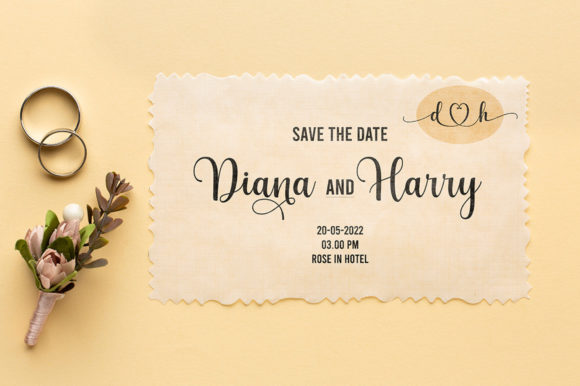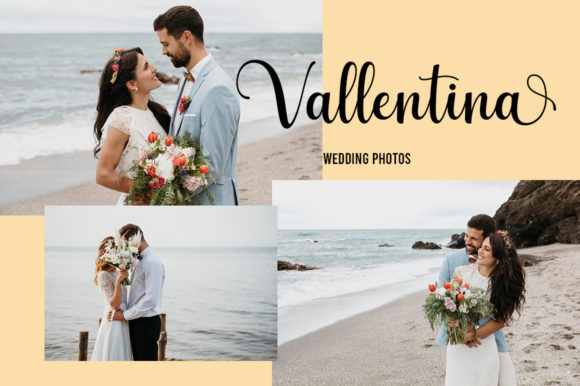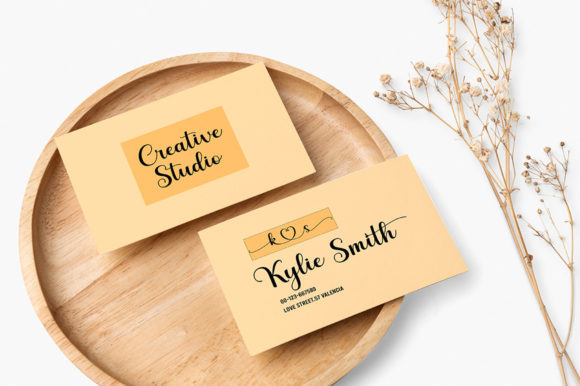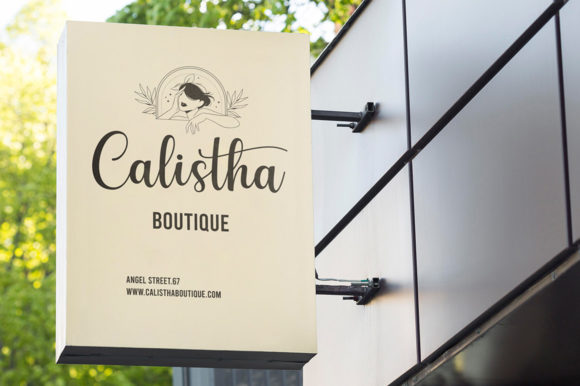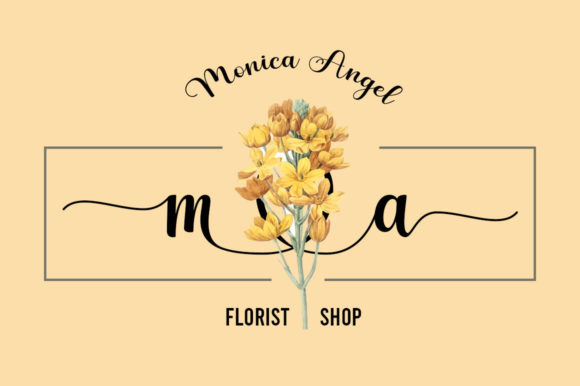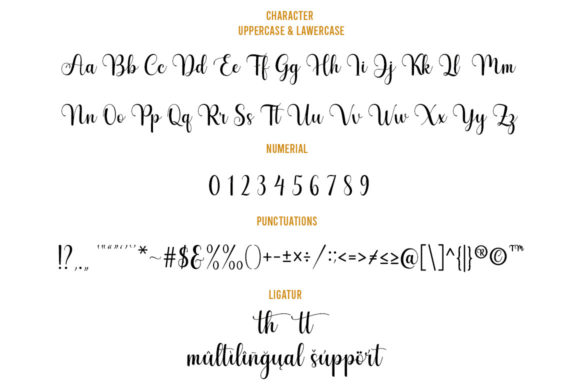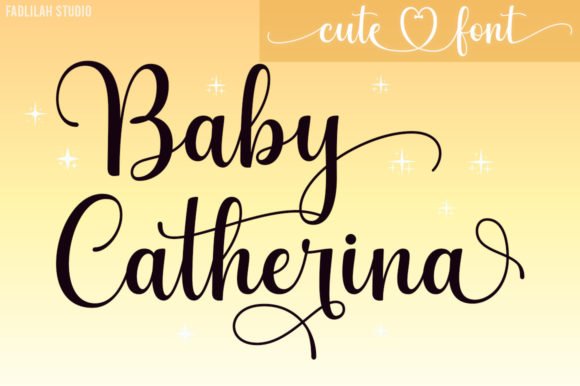
Discover the Timeless Elegance of Baby Catherina Font
There’s nothing quite like the thrill of brainstorming a new project, surrounded by scribbled notes and half-formed ideas. As you begin to envision your creation, the perfect font can make all the difference. And for designers looking to add a touch of sophistication to their work, Baby Catherina Font is a game-changer.
With its flowing, handwritten style, Baby Catherina Font is the perfect choice for those seeking an elegant and timeless look. Whether you’re crafting a wedding invitation, a baby announcement, or a personal blog post, this font is sure to capture the attention of your audience. Its distinct character and versatility make it a valuable asset for any designer looking to elevate their work.
Baby Catherina Font Key Features
- Font Family: Baby Catherina
- Unique Characteristics: Hand-drawn, whimsical, and elegant script font, ideal for creating a personal and unique touch in various designs
Baby Catherina Font Review
As a designer, I’ve had the chance to work with Baby Catherina Font, and I must say it’s a charming addition to any project. ✨ The font’s gentle, cursive lines evoke a sense of whimsy and playfulness, making it perfect for designs targeting young audiences or those with a soft, romantic feel.
- ✨ The font’s fluidity makes it easy to read, even in smaller sizes.
- ✨ The wide range of weights and styles allows for great flexibility in design.
- ✨ The font’s aesthetic is consistent across all weights, creating a cohesive look.
However, there are some limitations to consider. ⚠️ The font’s cursive nature can make it difficult to use in situations where readability is paramount, such as in body text or headlines with complex information.
- ⚠️ The font’s delicate nature may not be suitable for bold, attention-grabbing designs.
- ⚠️ Some characters may not be as well-formed as others, which can affect overall quality.
Overall, Baby Catherina Font is a lovely addition to any designer’s toolkit, but it’s essential to use it judiciously and in the right context. With careful consideration, it can add a touch of elegance and sophistication to your designs.
For optimal results, use the Baby Catherina Font in conjunction with soft, pastel colors and delicate graphics.
- Baby shower invitations and decorations
- Children’s party graphics and signage
Alternatives to Baby Catherina Font
Baby Catherina Font is a beautiful, elegant script font. However, designers may look for alternatives that offer similar characteristics or unique features. Here are a few options:
Great Vibes is a modern script font with a relaxed, casual feel. It is suitable for designs that require a friendly and approachable tone. Compared to Baby Catherina Font, Great Vibes has a more relaxed and casual vibe, making it ideal for designs that need a softer touch.
Carolyna Pro is a elegant script font with a sophisticated feel. It is suitable for designs that require a high-end and luxurious tone. Compared to Baby Catherina Font, Carolyna Pro has a more refined and polished look, making it ideal for designs that need to convey elegance and sophistication.
Playfair Display is a luxurious script font with a classic feel. It is suitable for designs that require a high-end and sophisticated tone. Compared to Baby Catherina Font, Playfair Display has a more classic and traditional look, making it ideal for designs that need to convey elegance and sophistication.